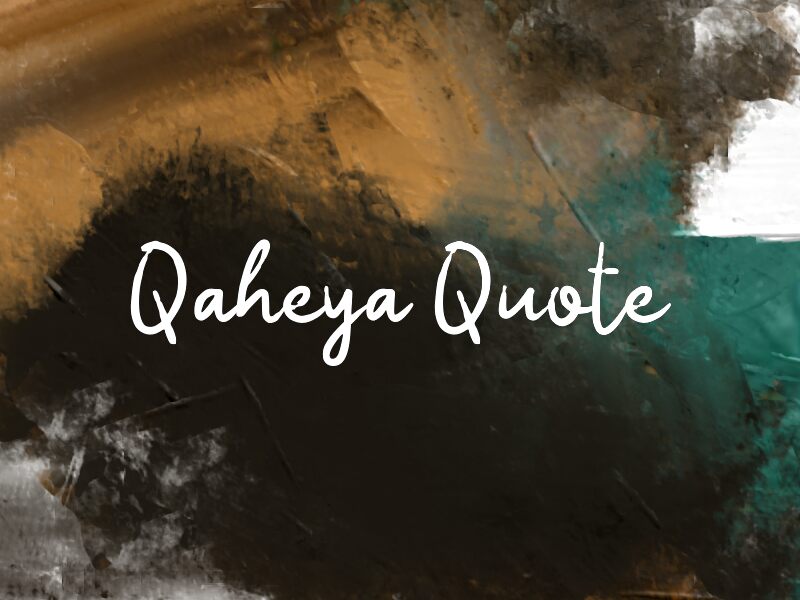
Qaheya Quote font by wep is a free handwritten font with fluid, organic forms and informal style. Its natural yet expressive strokes add a casual elegance and personal touch to any design. This modern script is approachable, versatile, and easy on the eye.
This font could be used in various projects such as crafting logo designs, creating title headers, posters, or banners, designing branding and packaging, designing striking book covers, in magazines and newspapers, developing pleasant websites, and in social media posts. Download it and bring your projects to life with professionalism.
Qaheya Quote is a unique and stylish free font that adds a touch of elegance to any design project. This versatile font is perfect for creating eye-catching typography, whether for headlines, posters, or branding materials. With its distinct character, Qaheya Quote enables you to stand out while maintaining readability and charm.